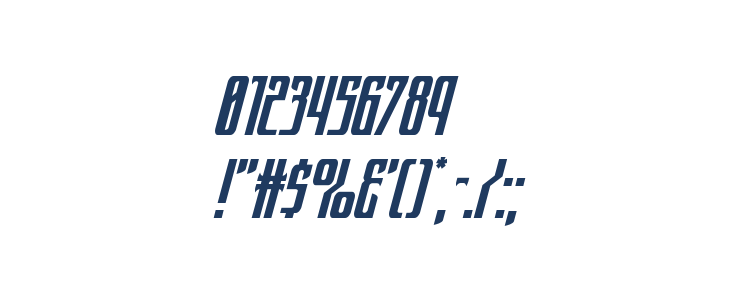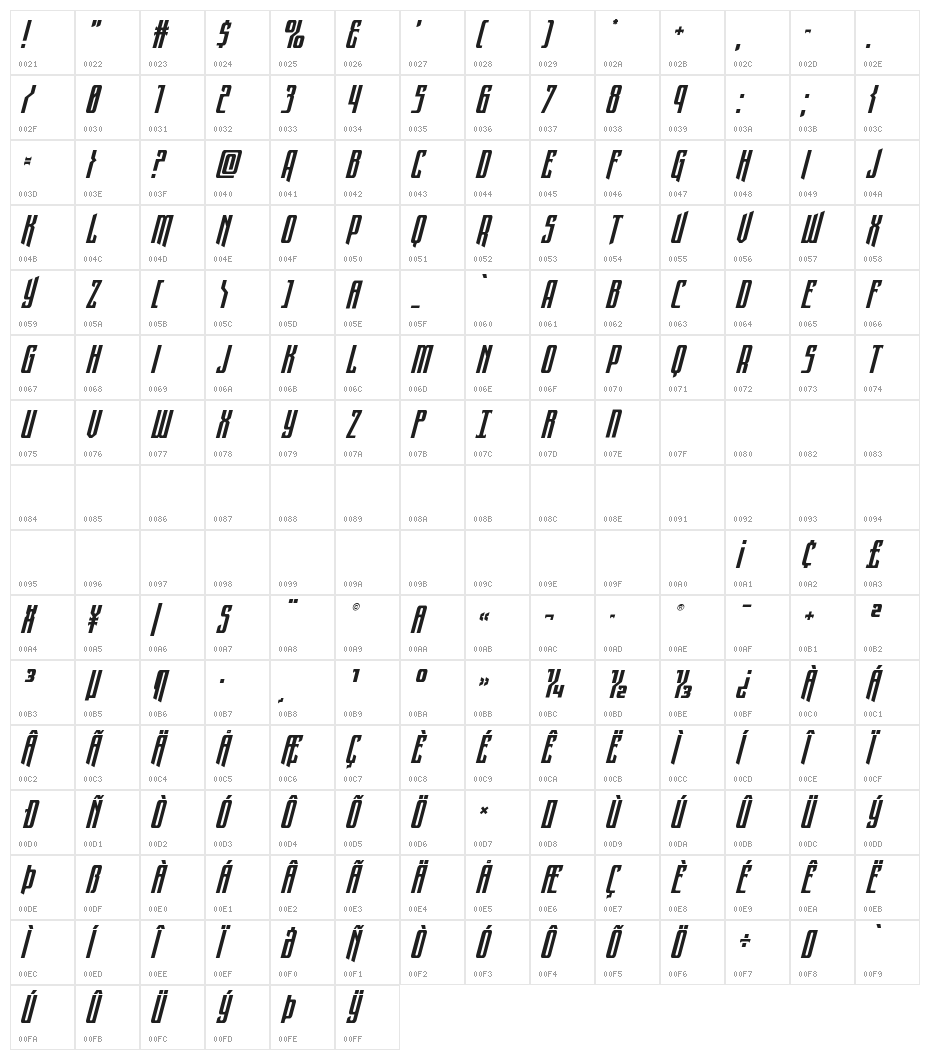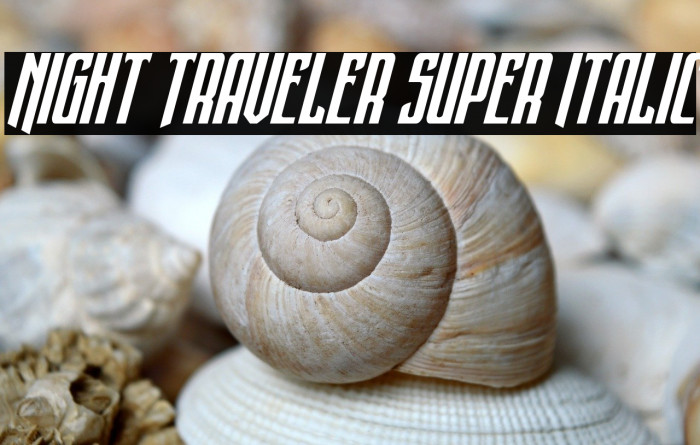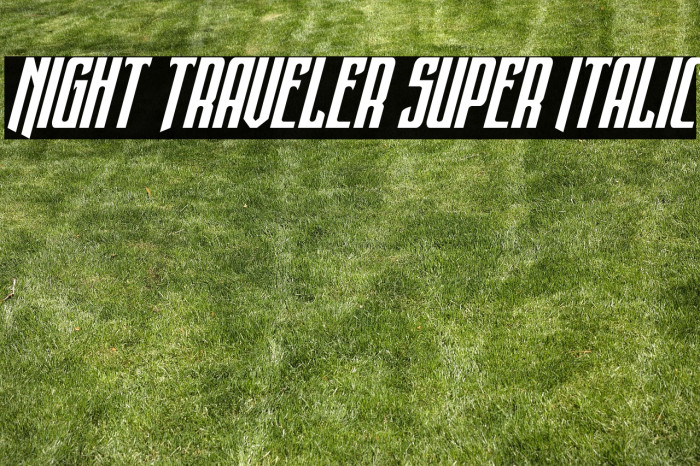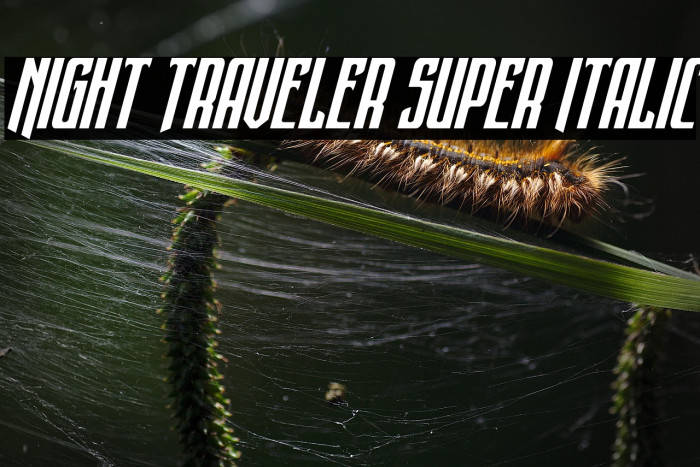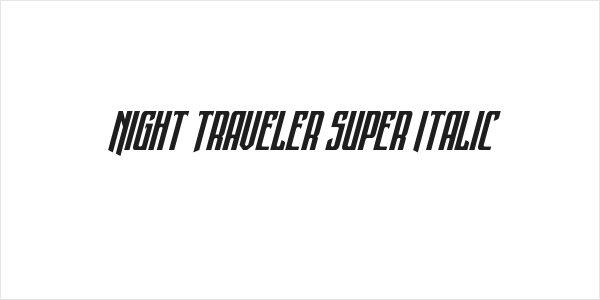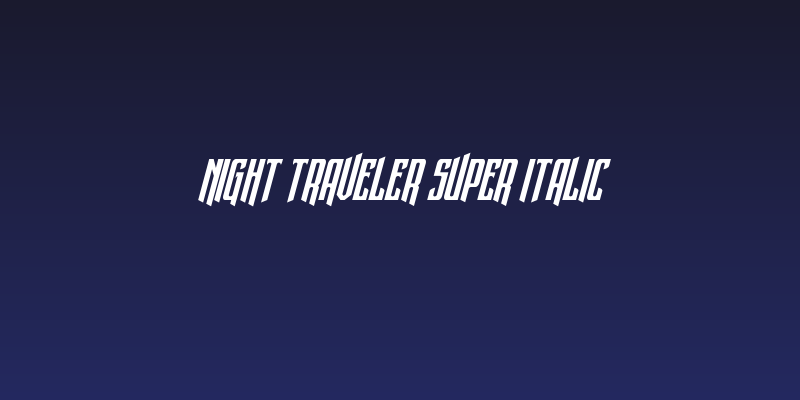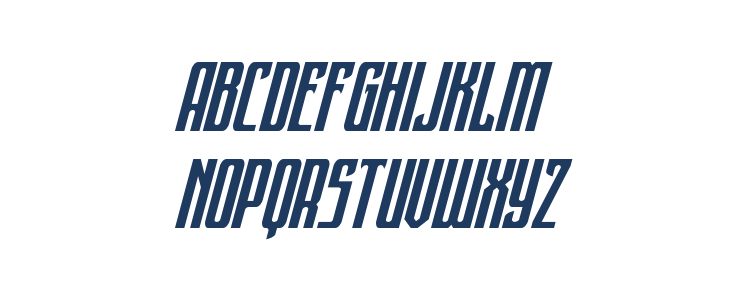
Night Traveler Super Italic Font
Night Traveler Super Italic Description
This font features a dynamic and energetic style with a strong italic slant, giving it a sense of motion and speed. The characters are bold and angular, with sharp edges and a futuristic appearance. The uppercase and lowercase letters maintain a consistent style, while the numerals and special characters complement the overall design. The font's aggressive and modern look makes it suitable for projects that require a bold statement.
| Proposed Projects | Ideal for sports branding, automotive designs, video game titles, and dynamic posters. |